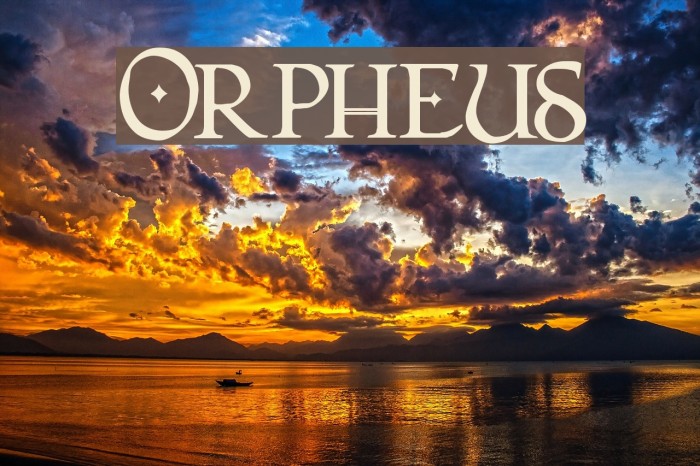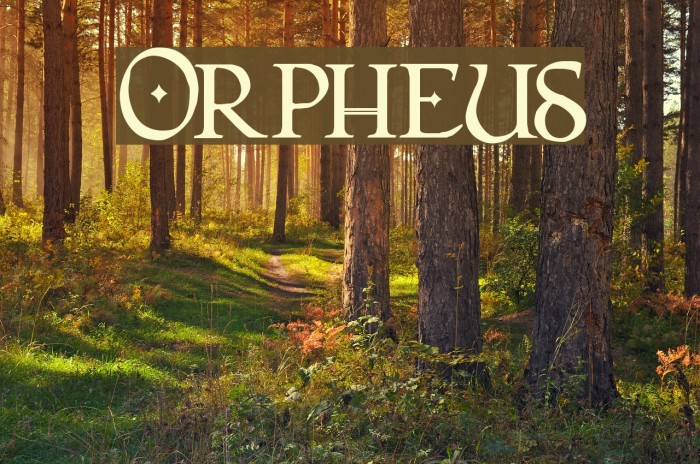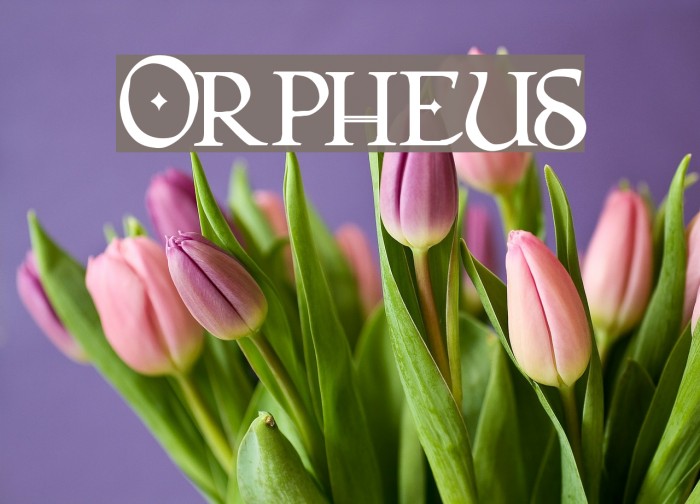
Orpheus Font
This font features a unique blend of classic and decorative elements, characterized by its elegant and intricate design. The uppercase letters exhibit a distinct flair with sharp, angular serifs and occasional flourishes that add a touch of sophistication. The lowercase letters maintain a consistent style, with smooth curves and a slightly condensed form. Numbers are bold and clear, ensuring readability while maintaining the overall aesthetic. Special characters are designed with the same attention to detail, providing a cohesive look across all glyphs. This font's artistic style makes it suitable for projects that require a touch of elegance and historical charm.
An elegant and decorative font with classic, intricate design elements.
- Proposed Projects: Ideal for wedding invitations, historical-themed posters, book covers, and branding that requires a touch of elegance.
- Overall Style: Classic, Decorative
- Use Case: Headlines, Logos, Invitations